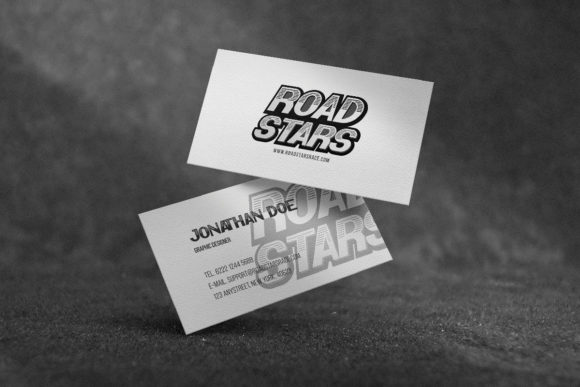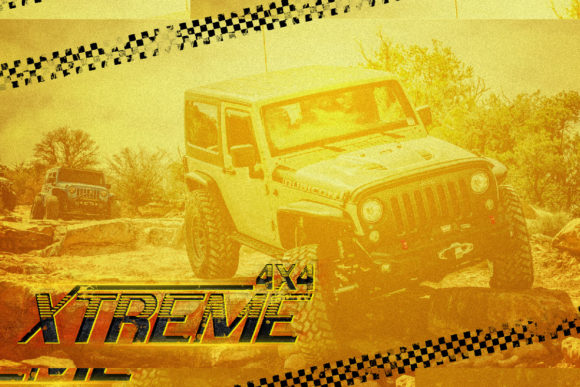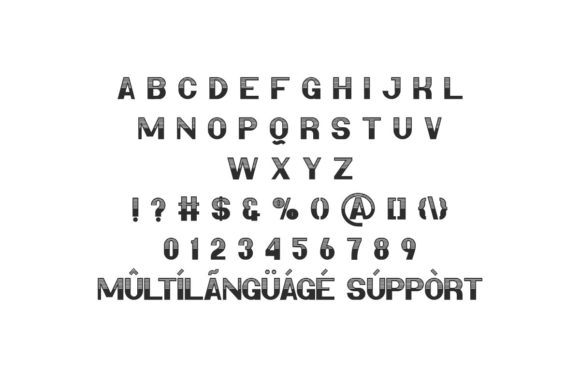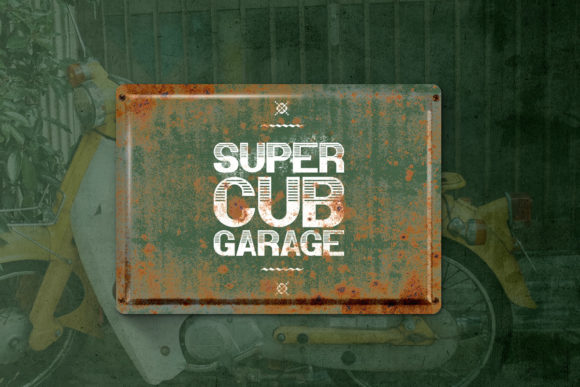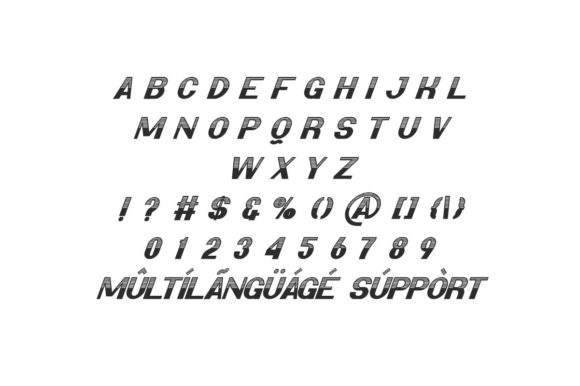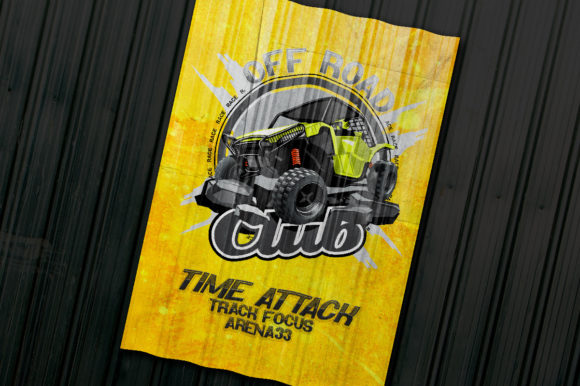
Introduction to Retro Race Font Font
Fonts play a crucial role in design, and the Retro Race Font font is a typeface that brings both character and versatility to any project. Whether you’re working on a branding project, a website, or a print design, the Retro Race Font font offers a unique style that can elevate your work.
Retro Race is a bold and cool lettered display font.
Whether youβre looking for fonts for Instagram or calligraphy scripts for DIY projects, this font will turn any creative idea into a true piece of art .
Key Features of Retro Race Font Font
Why Choose Retro Race Font Font?
The Retro Race Font font is more than just a typeface β it’s a design tool that helps you communicate your message with style and clarity. Its unique character set and versatile design make it suitable for a wide range of applications, from elegant invitations to bold headlines.
With its carefully crafted letterforms and balanced proportions, the Retro Race Font font ensures readability and visual appeal across all mediums.
What makes Retro Race Font font special?
The Retro Race Font font stands out with its unique design, exceptional readability, and versatility across various design applications.